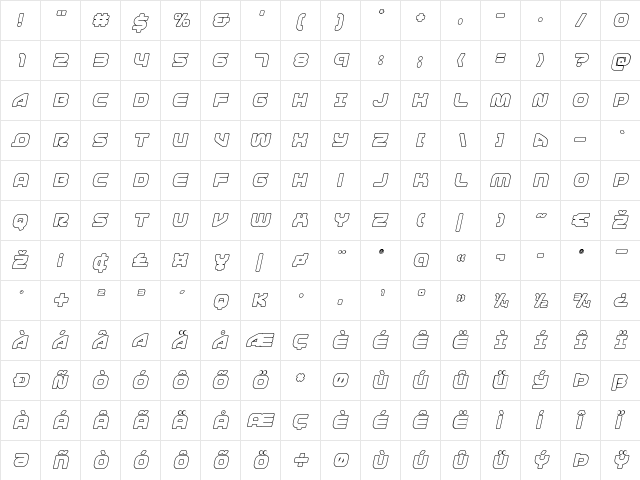
1st Enterprises Outline Italic Italic
Design Context for 1st Enterprises Outline Italic Typeface
1st Enterprises Outline Italic brings ornamental detail and strong personality to headlines and identities, where visual impact matters more than quiet functionality. Its italic angle brings a sense of urgency and motion to the letterforms.
Font Pairing: Pair with a clean neutral sans-serif for body copy to let 1st Enterprises Outline Italic's character lead without overwhelming the composition.
Pro Tip: Use 1st Enterprises Outline Italic exclusively at display sizes — it was designed to be seen, not read at length. Let a neutral companion handle body copy.